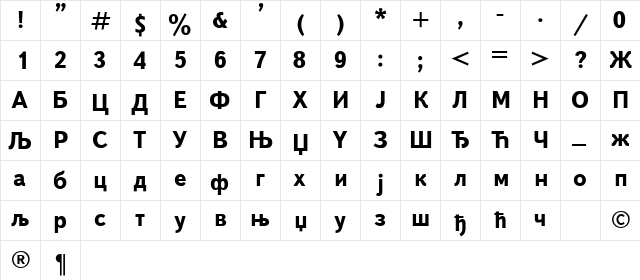
Book-Cirilica Bold
Design Context for Book-Cirilica Typeface
Book-Cirilica offers clean, dependable letterforms without strong stylistic allegiance, making it a practical choice for designers who need flexibility. Its bold stroke weight gives it real presence on the page.